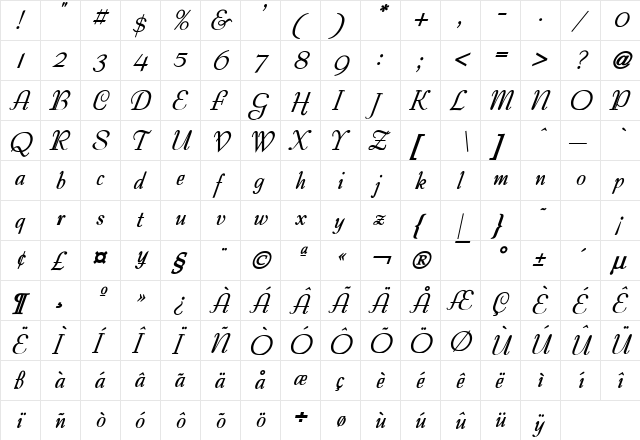
Tango Bold Italic
Design Context for Tango Typeface
Tango is a composed and adaptable typeface that performs quietly and consistently across a wide range of design contexts. Its italic angle brings a sense of urgency and motion to the letterforms. Its bold stroke weight gives it real presence on the page.
Pro Tip: Use Tango for emphasis, pull quotes, and subheadings where its slanted energy can add rhythm to the layout.